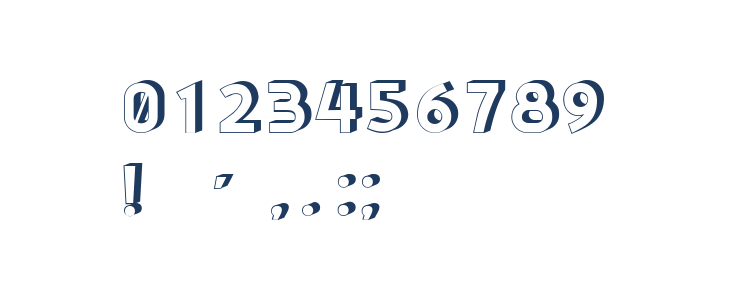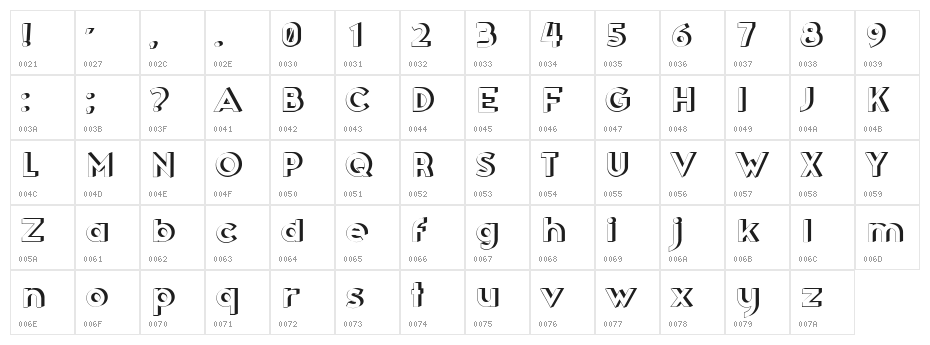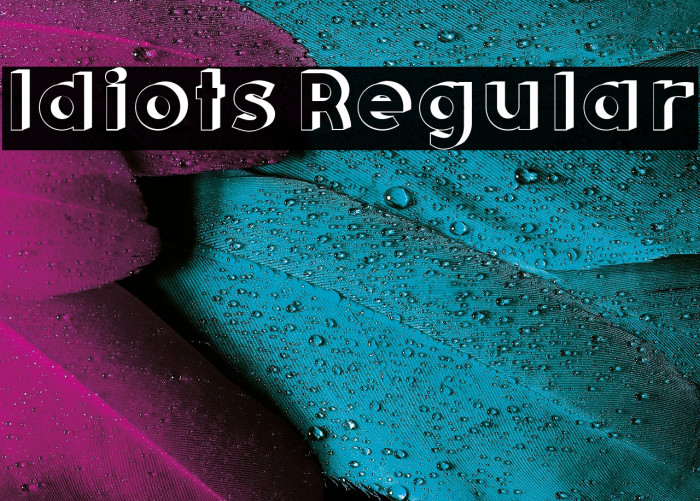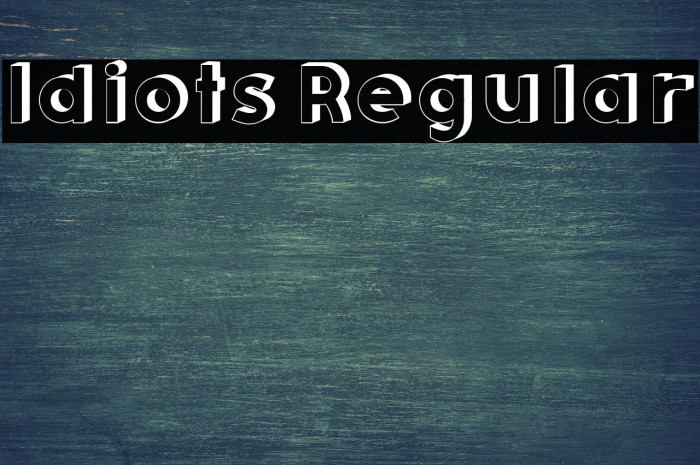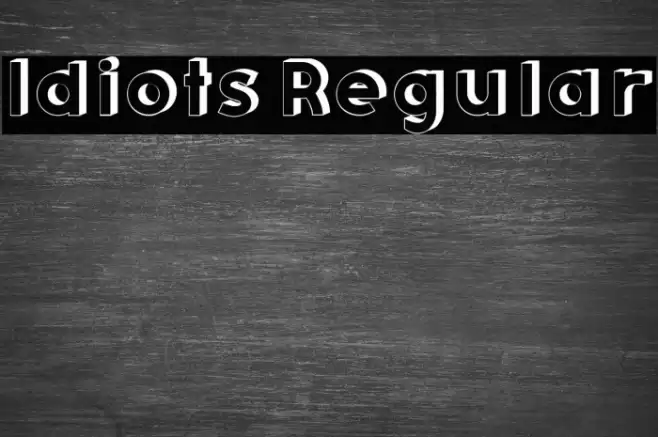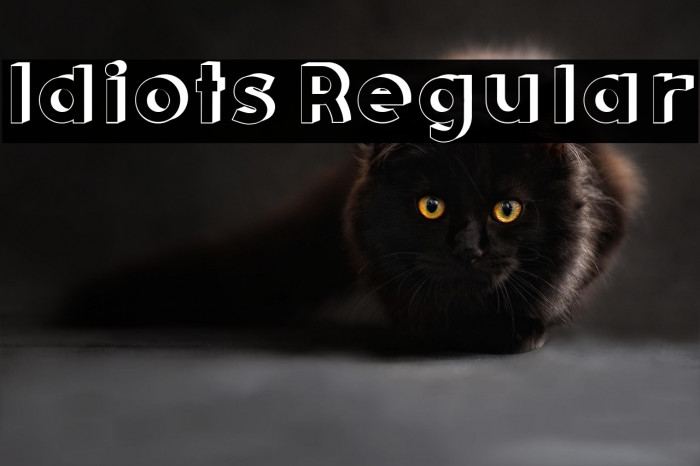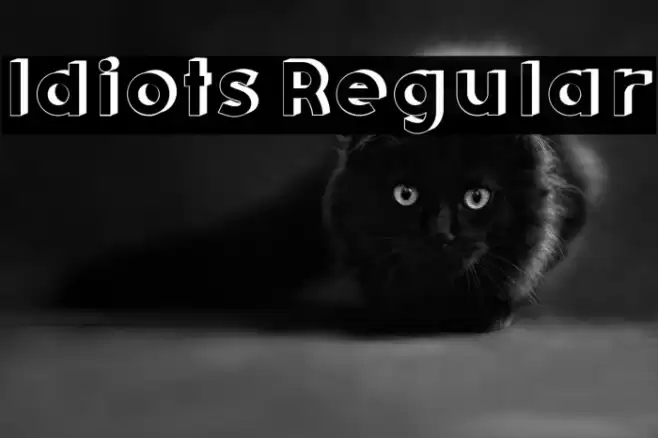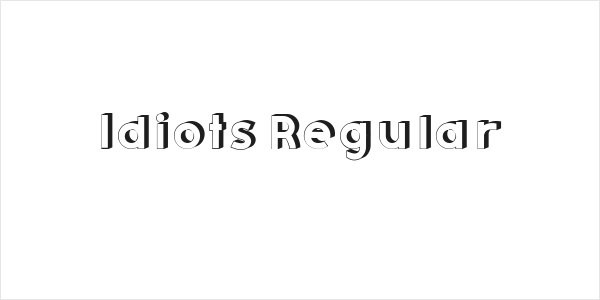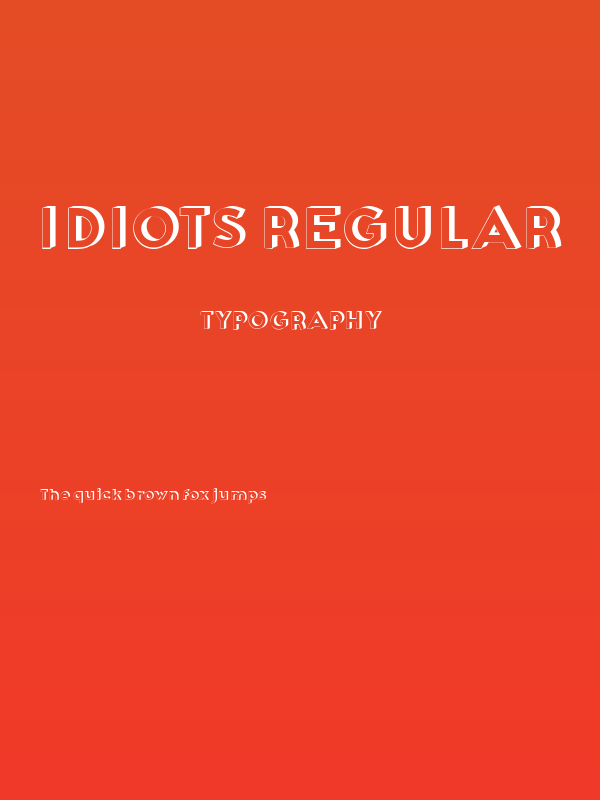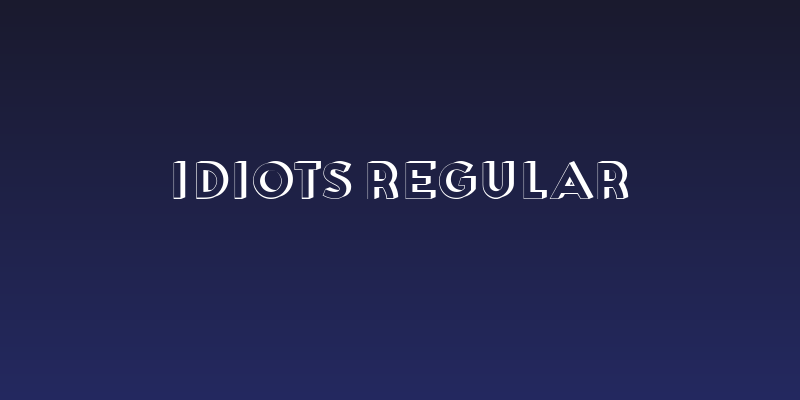
Idiots Regular Font
Idiots Regular Description
This font features a bold and playful design with a three-dimensional effect. The characters are outlined with a shadow that gives them depth and a sense of movement. The uppercase and lowercase letters maintain a consistent style, with clean lines and a modern aesthetic. The numbers and special characters are designed to match the overall look, making it versatile for various uses. Its unique style makes it stand out, perfect for projects that require a touch of creativity and fun.
| Proposed Projects | Ideal for posters, headlines, logos, and creative branding projects. |